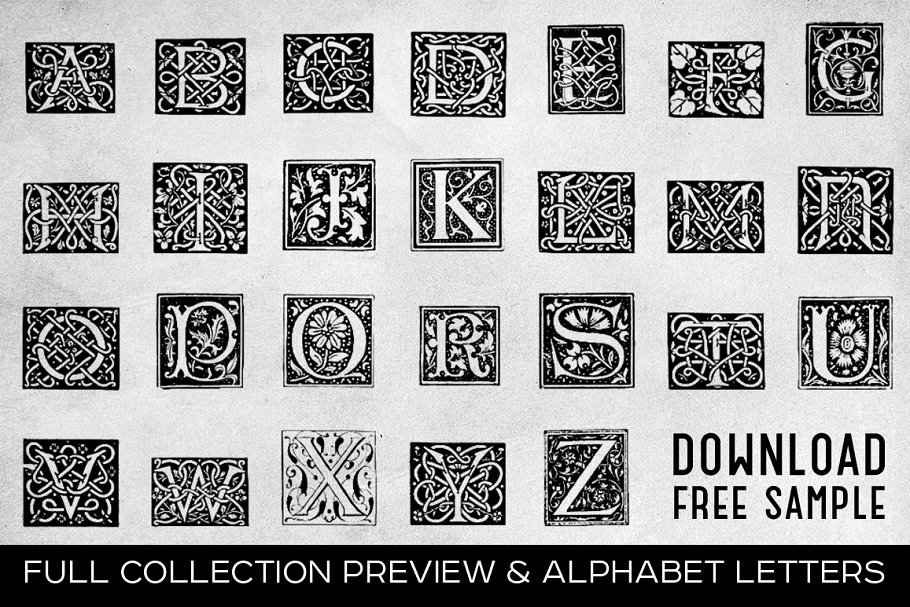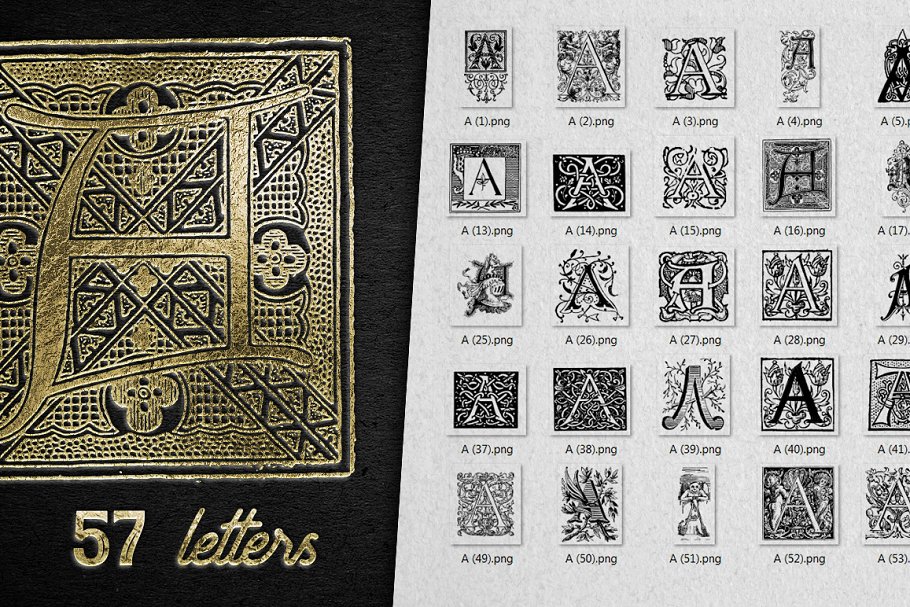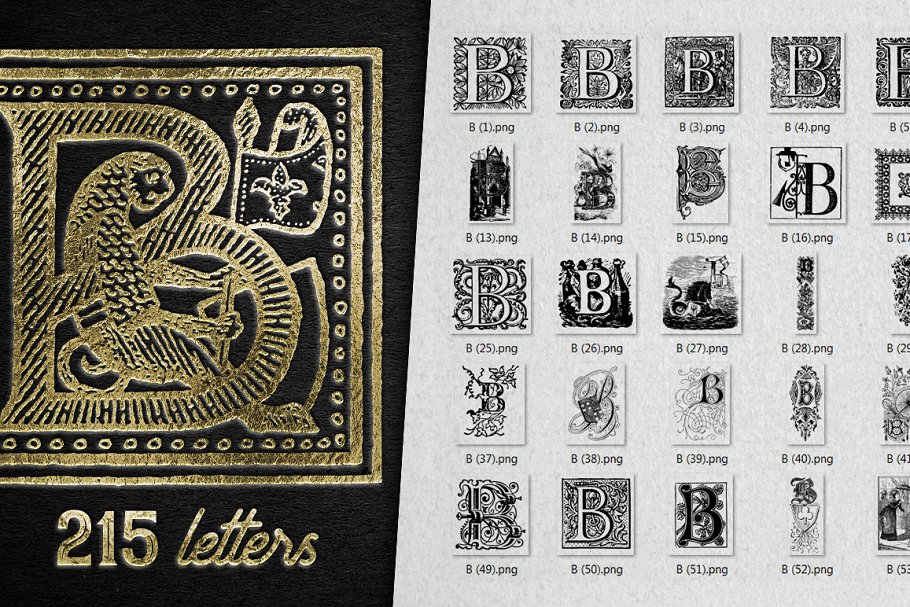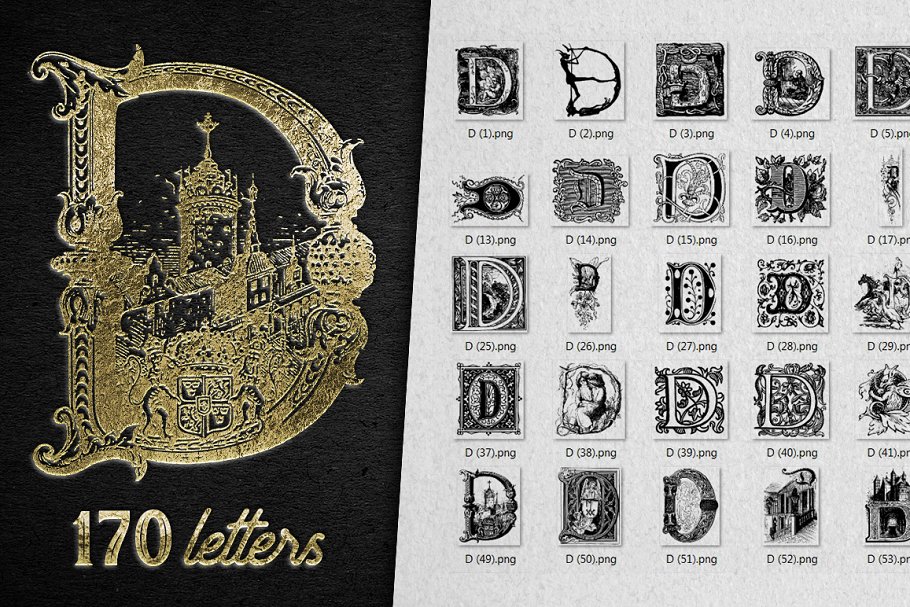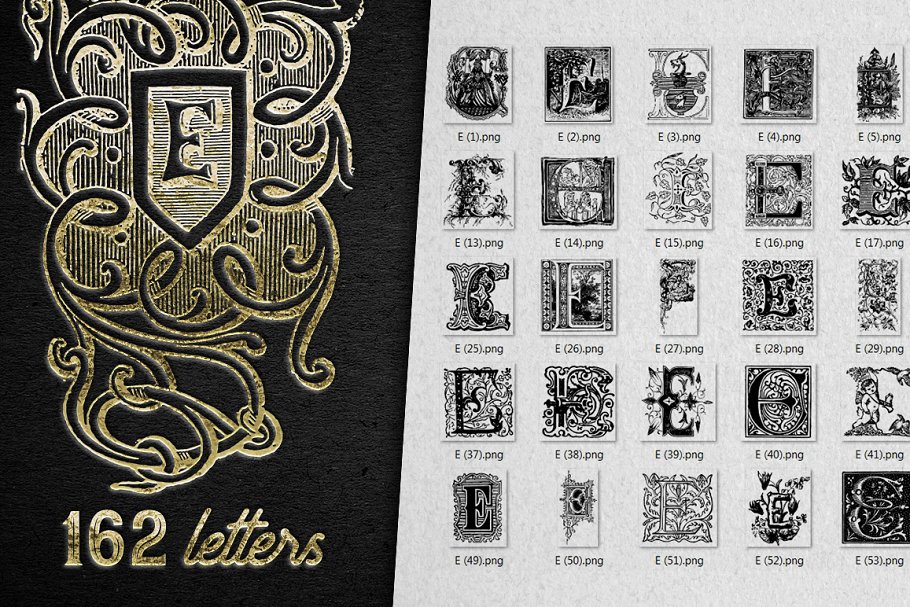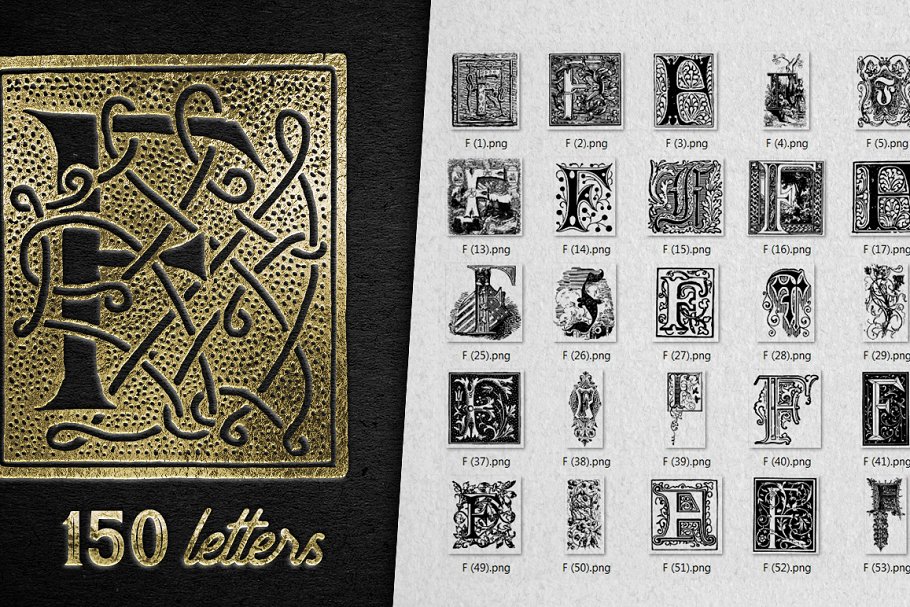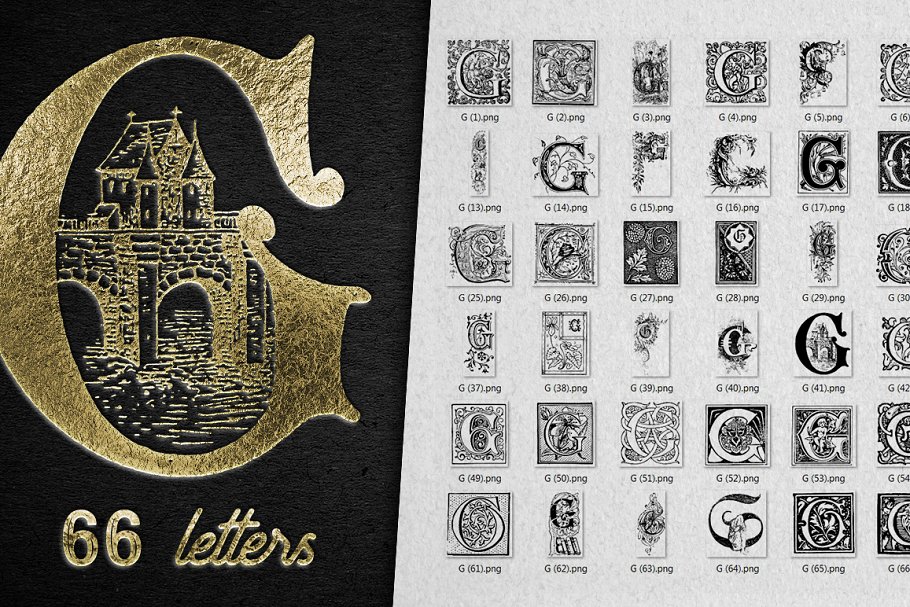
About the IN VINTAGE LETTERS COLLECTION Font
💖 ENTIRE SHOP + SUBSCRIBE TO UPDATES https://crmrkt, com/Gkjlq7Finally, I want to introduce to you this incredible product which I have devoted months of hard workand as a result before you unique collection of rare vintage letters in different styles: Celtic, Gothic, gravure, and many others, , , Using them, you can create a variety of stylish designs, remarkable letters, any texts you can start with expressive letter, create monogram and initials, decorate wedding postcard with initials of honeymooners, design family coat of arms, create a logo, create a poster for the interior and a lot of incredible things what my product will inspire you